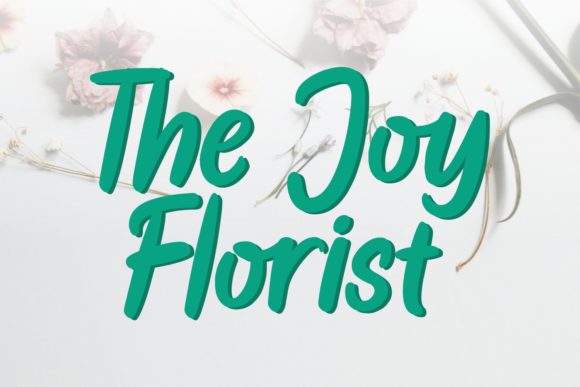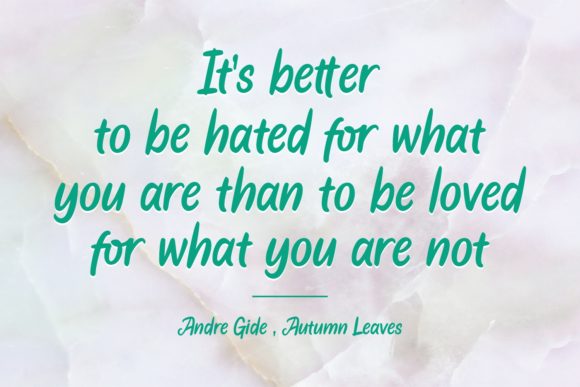
Alegra Font: Unleash Your Creativity with this Cool and Strong Handwritten Font
Are you a designer or crafter looking for a unique and bold font to elevate your creative projects? Look no further than Alegra Font! This cool and strong handwritten font is sure to inspire your next design venture with its distinctive style and bold feel.
What is Alegra Font?
Alegra Font is a modern, handwritten font designed to make a statement. Its bold and confident lines make it perfect for a variety of design projects, from branding and advertising to packaging and digital media. With its unique style and strong personality, Alegra Font is sure to grab attention and leave a lasting impression.
Key Features of Alegra Font
- Unique Style: Alegra Font boasts a one-of-a-kind design that sets it apart from other fonts. Its bold lines, flowing curves, and distinctive letterforms make it a standout choice for designers and crafters.
- Handwritten Feel: Alegra Font has a warm, handwritten feel that adds a personal touch to any design project. Its organic look and feel make it perfect for creating unique and eye-catching designs.
- Bold and Strong: Alegra Font is a bold and strong font that demands attention. Its confident lines and sturdy letterforms make it ideal for headlines, titles, and other design elements that need to make a statement.
- Versatile: Alegra Font is a versatile font that can be used in a wide range of design projects, from digital media to print materials.
How to Use Alegra Font in Your Design Projects
Alegra Font is easy to use and can be incorporated into a variety of design projects. Here are a few ideas to get you started:
- Branding and Advertising: Use Alegra Font to create bold and eye-catching logos, advertisements, and marketing materials.
- Packaging Design: Add a personal touch to your packaging designs with Alegra Font’s unique and handwritten style.
- Digital Media: Use Alegra Font to create engaging and interactive digital content, such as social media graphics, blog posts, and website headers.
- Crafting and DIY Projects: Alegra Font is also perfect for crafters and DIY enthusiasts who want to add a personal touch to their projects, such as handmade cards, scrapbooking, and iron-on designs.
Tips for Getting the Most Out of Alegra Font
Here are a few tips for getting the most out of Alegra Font:
- Experiment with Different Sizes: Alegra Font looks great in a variety of sizes, from small and subtle to large and bold.
- Play with Color: Alegra Font can be used with a range of colors, from bold and bright to soft and pastel.
- Combine with Other Fonts: Alegra Font can be paired with other fonts to create a unique and eye-catching design.